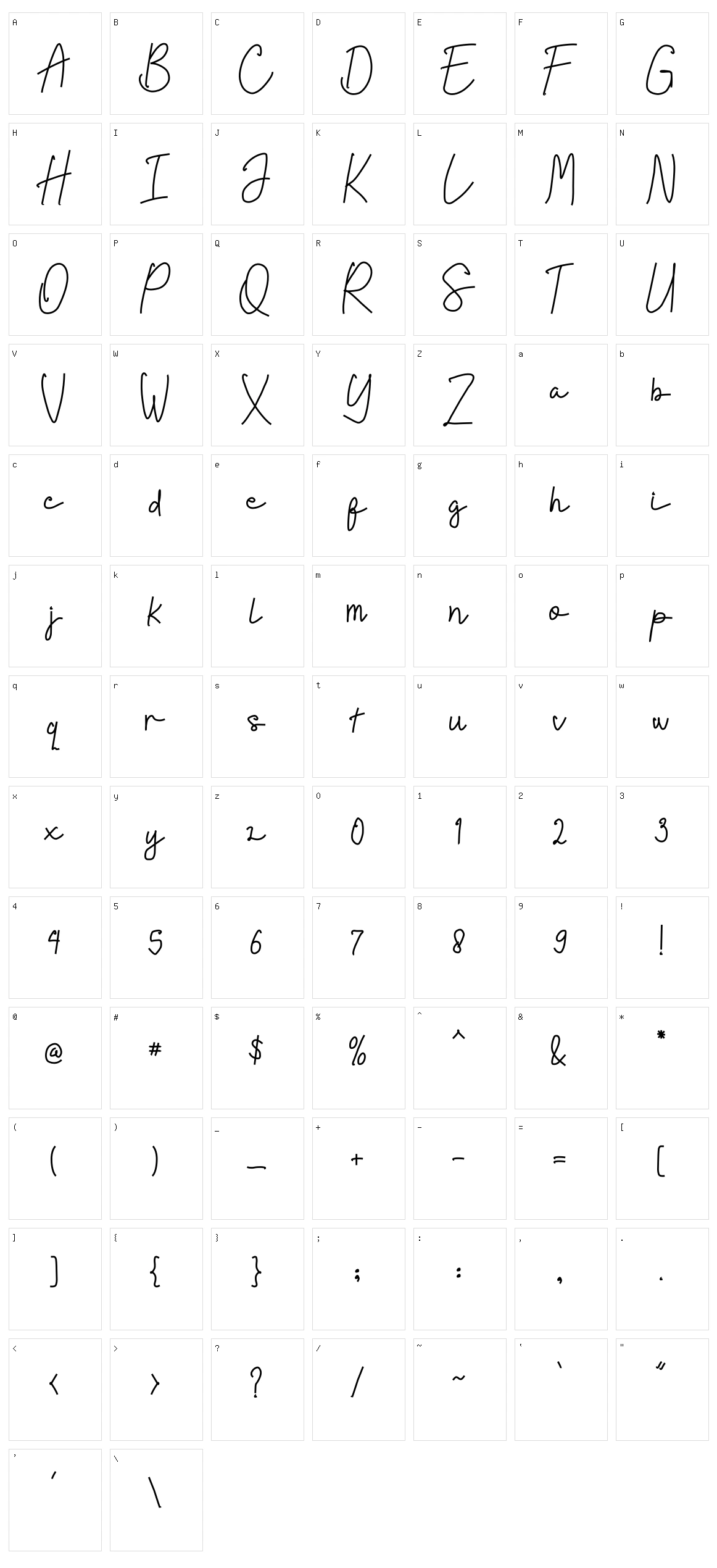
Helavionitta is a Handwritten Monoline Font that has Natural and elegant feels, it suits for any of your commercial projects logo, wedding designs, social media posts, advertisements, product packaging, product designs, label, photography, watermark, invitation, stationery and any projects that need handwriting monoline taste.